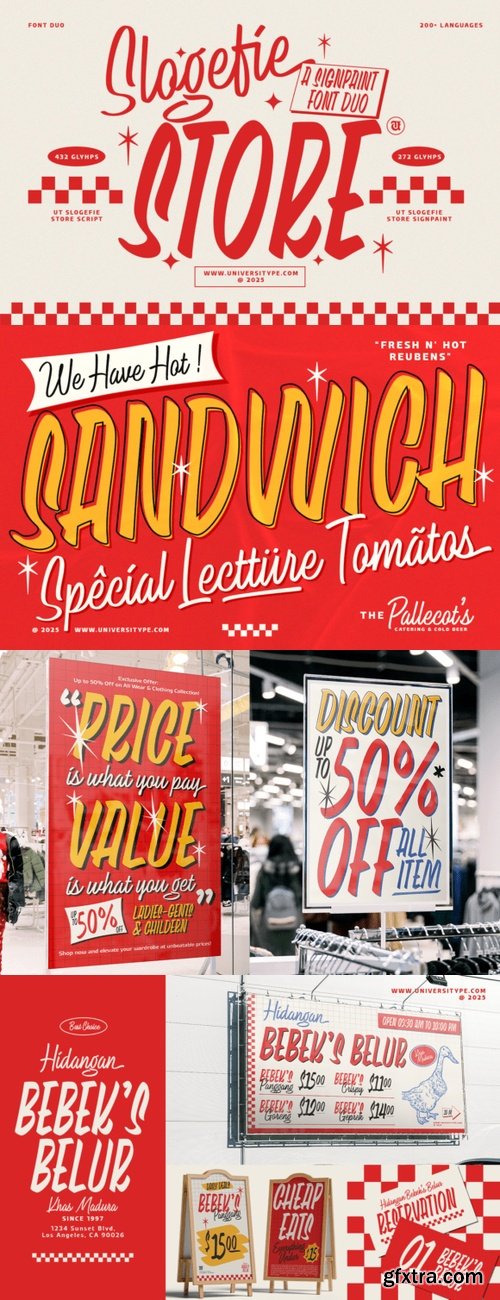
- Introducing the effervescent UT Slogefie Store – a dynamic font duo that marries the attractive allure of script with the stand-out strength of signpaint. It’s a blend designed to make your work pop, and an ideal resource for projects requiring vibrancy and personality. UT Slogefie is more than a font, it’s a catalyst for creative expression.
- Targeted at graphic designers, branding gurus, marketing masters and creative visionaries, UT Slogefie helps you catch eyes and communicate a vibe of enthusiasm and vitality. The font draws its lifeblood from classic signage and traditional hand-lettering, with a flavorful dash of modernity, delivering an artistic balance between vintage appeal and contemporary cool.
- Seamlessly compatible with digital and print media, this font ensures your designs maintain their charm, whether on a screen or a sheet. Think of UT Slogefie as your secret weapon for creating a unique and memorable visual identity, crafting captivating advertising campaigns, and adding character to product packaging. It’s also a star for event design, contributing a spark to invitations, banners, and event décor.
- Embrace UT Slogefie: your partner in visual storytelling, ready to amplify the aesthetic appeal and visual impact of your work.